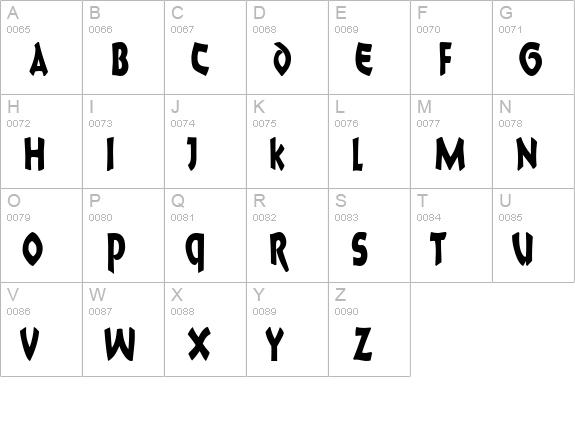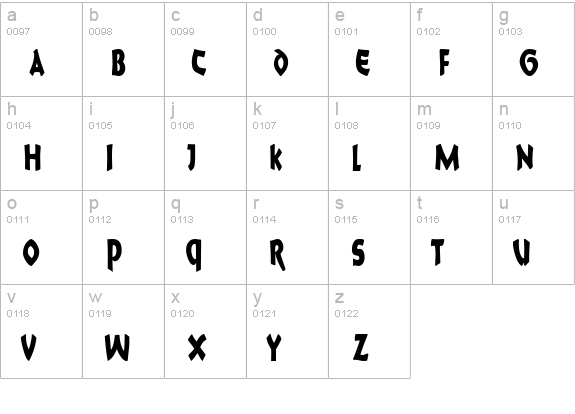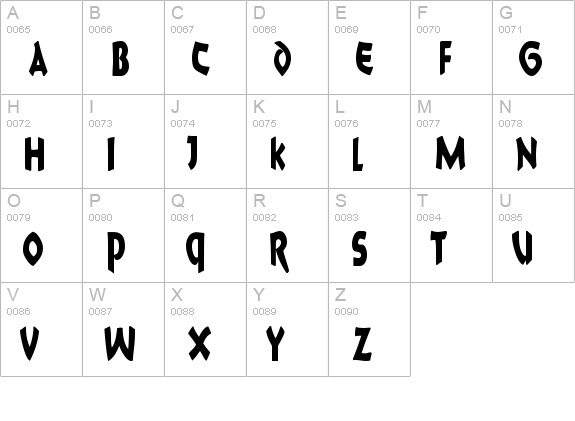
8BallScriptSCapsSSK Bold Font Details
8BallScriptSCapsSSK Bold is a strong, high-contrast variant in the 8BallScriptSCapsSSK typeface family \xE2\x80\x94 well suited to headlines, attention-grabbing titles, and strong calls-to-action.
8BallScriptSCapsSSK Bold font is a stylish and eye-catching typeface that commands attention with its bold and elegant design. The unique script style of this font adds a touch of sophistication to any project, making it perfect for logos, branding, and other creative designs. The clean lines and sharp edges of 8BallScriptSCapsSSK Bold font make it versatile and easy to read, ensuring that your message stands out in any application. Whether you're designing a poster, website, or packaging, this font is sure to make a bold statement. Best of all, 8BallScriptSCapsSSK Bold font is available for free download at FontsMarket.com. So why wait? Add this stunning font to your collection today and take your designs to the next level!